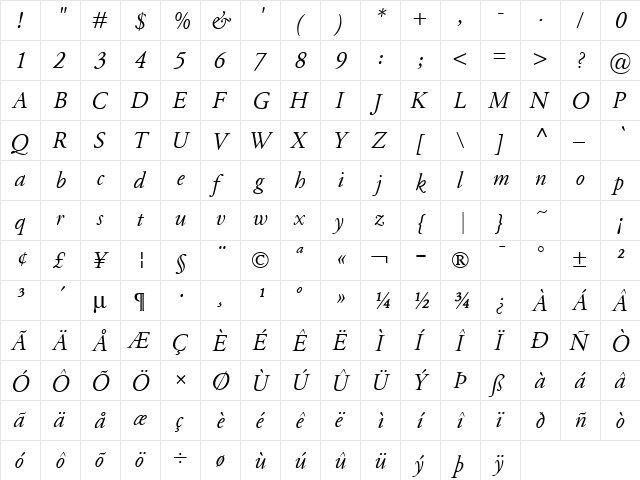
Garamond Classico Italic
Design Context for Garamond Classico Typeface
Garamond Classico wears its vintage influences proudly, with letterforms that recall mid-century signage, classic packaging, and nostalgia-driven design. The slanted form adds forward momentum and visual energy.
Perfect for vintage-inspired branding, retro packaging, nostalgia campaigns, and period-accurate editorial design.
Font Pairing: Combine Garamond Classico with a simple slab or neutral sans — period-accurate companions reinforce the vintage feel without competing for attention.
Pro Tip: Use Garamond Classico for headlines and pull quotes rather than body copy — its personality is best appreciated in short, focused bursts.